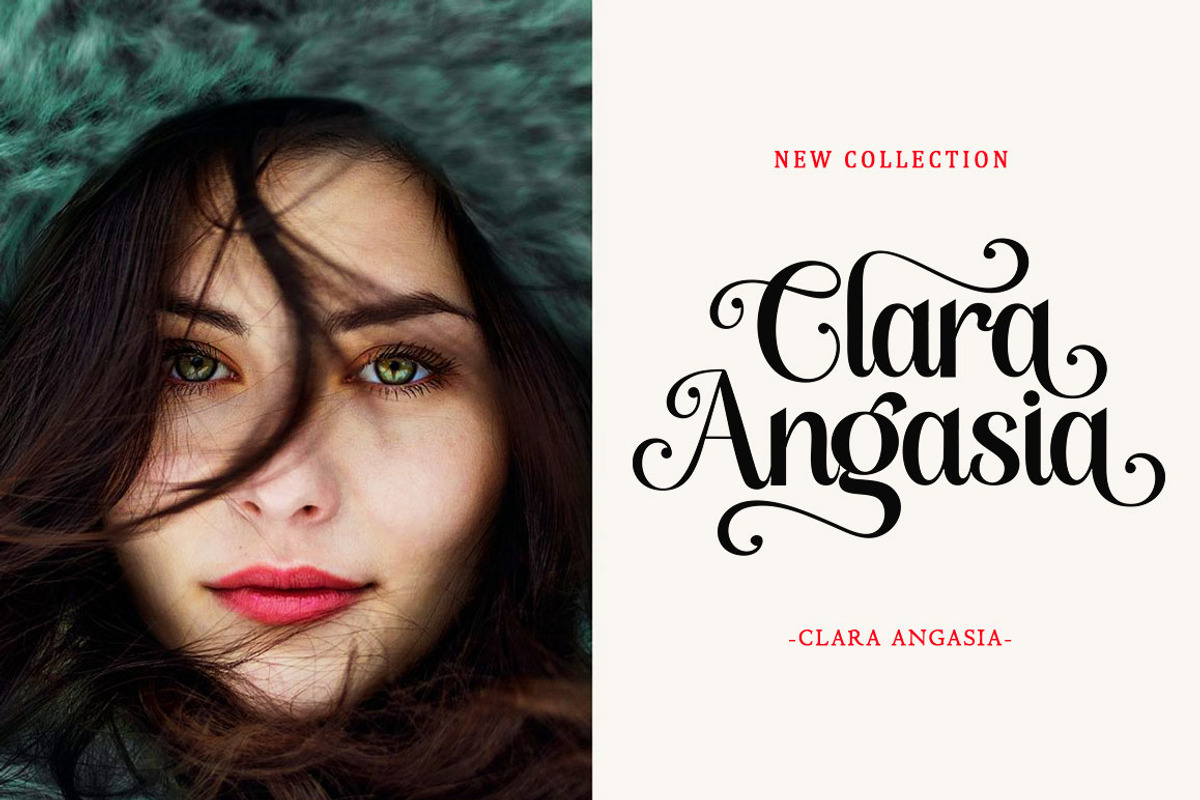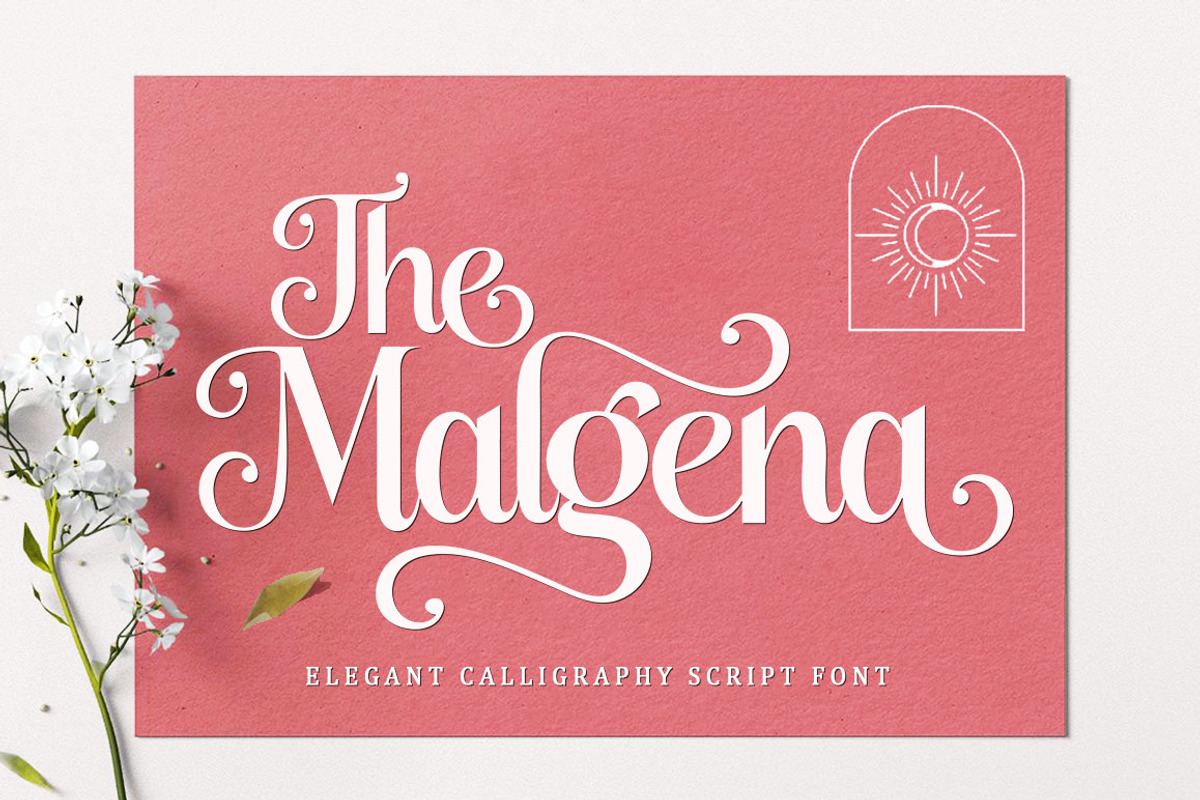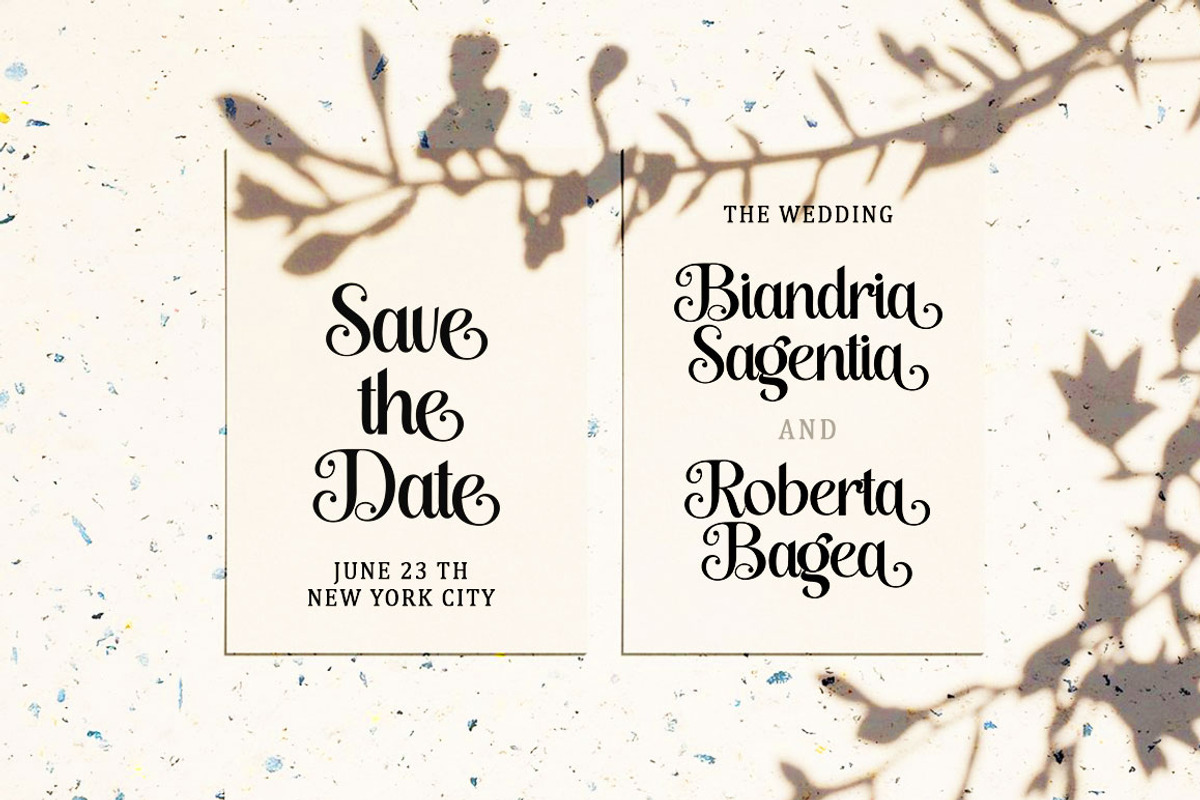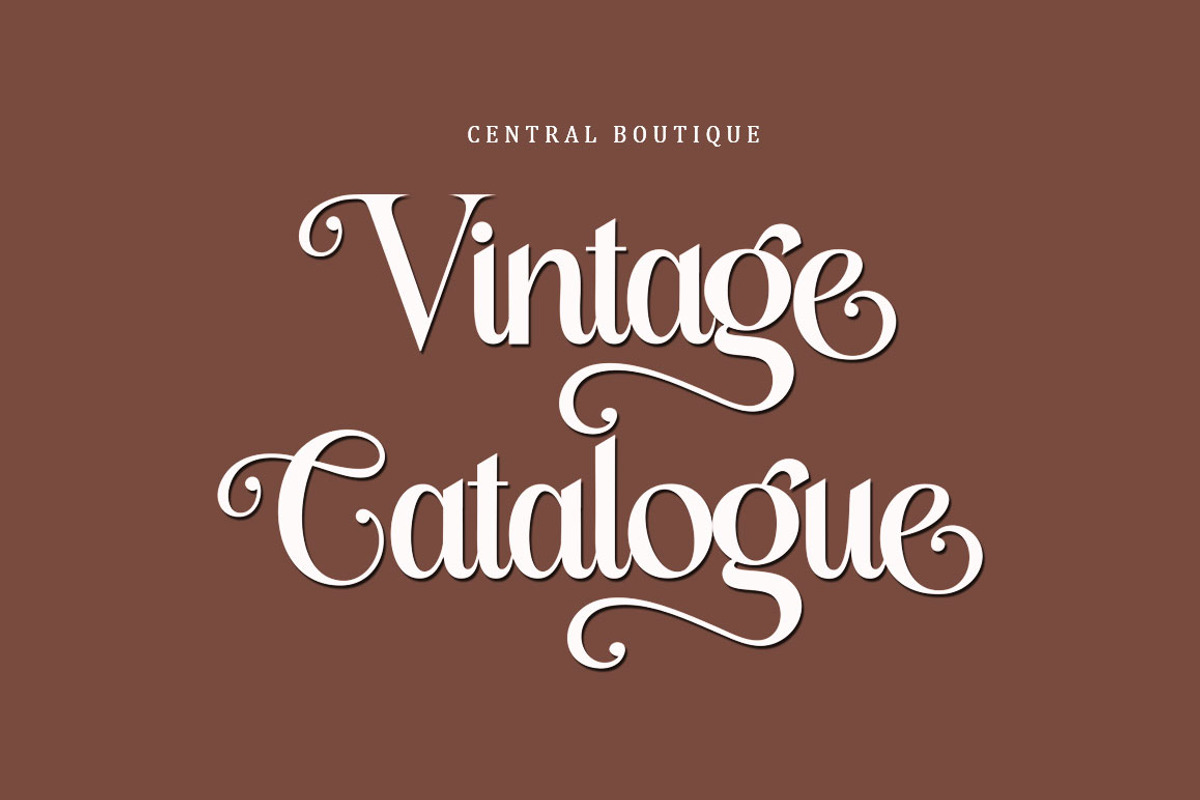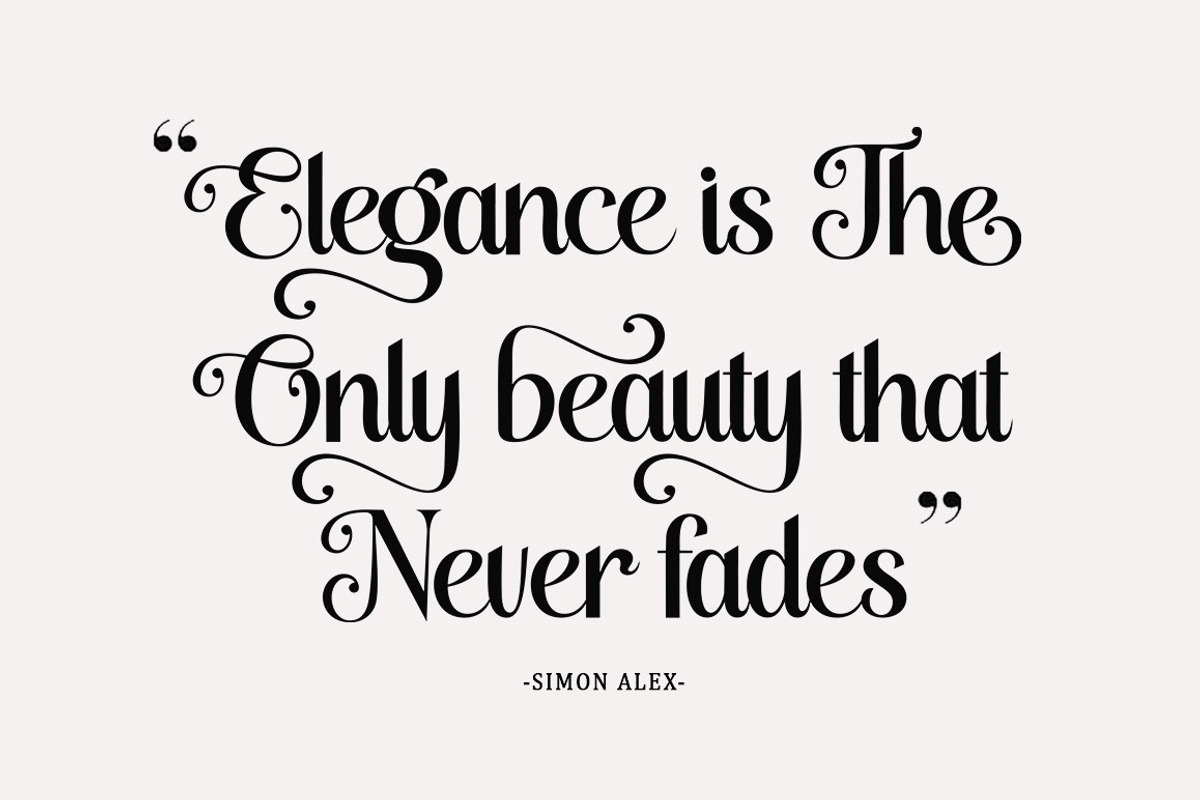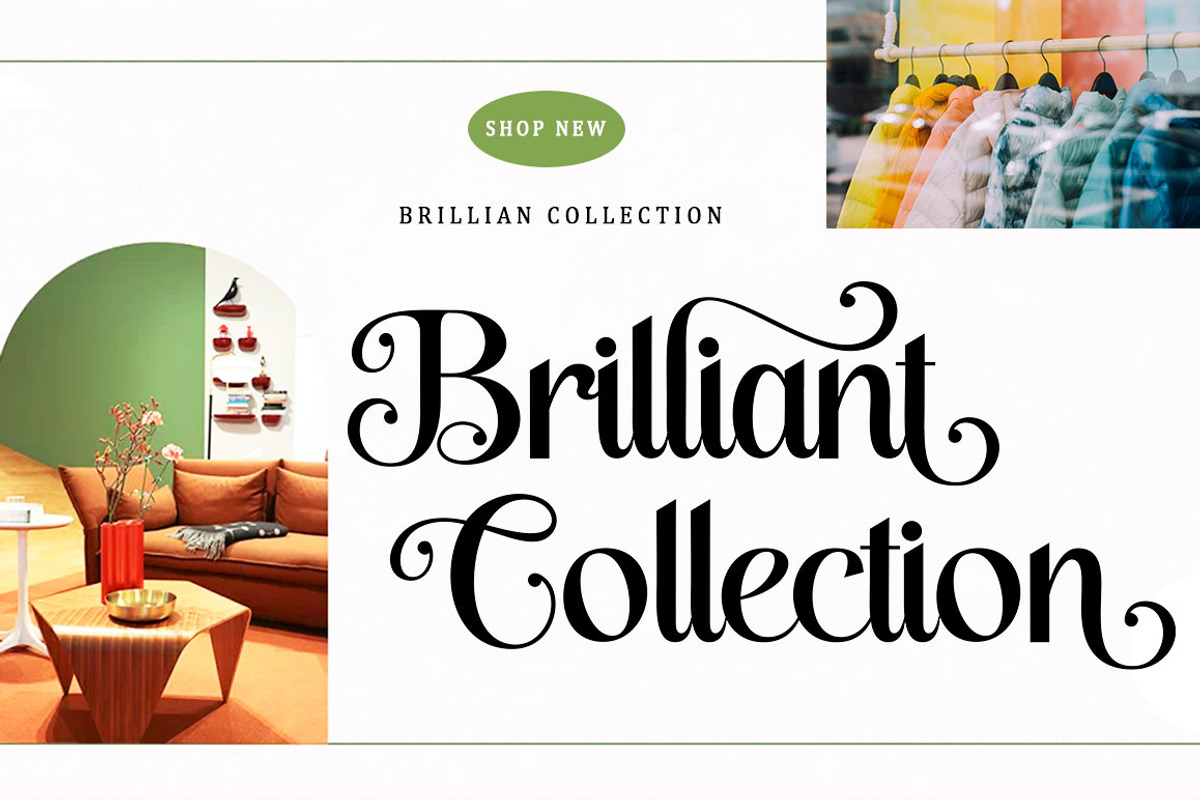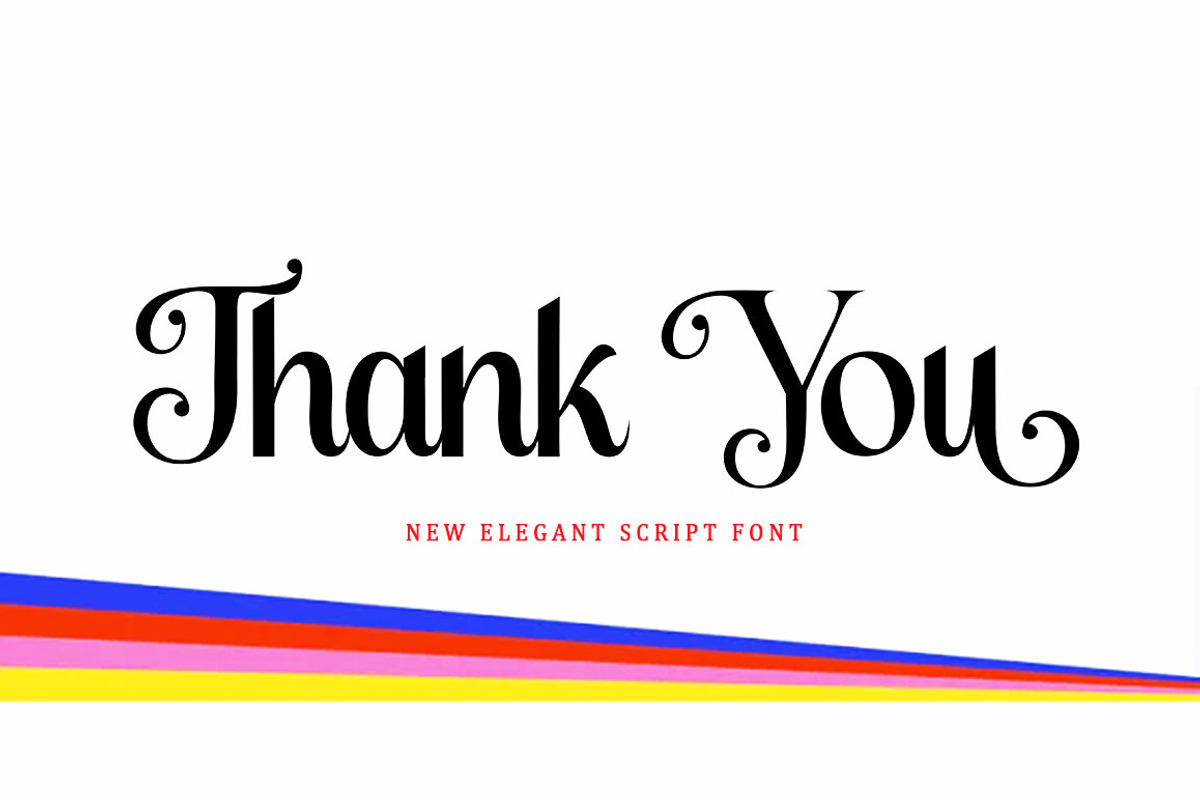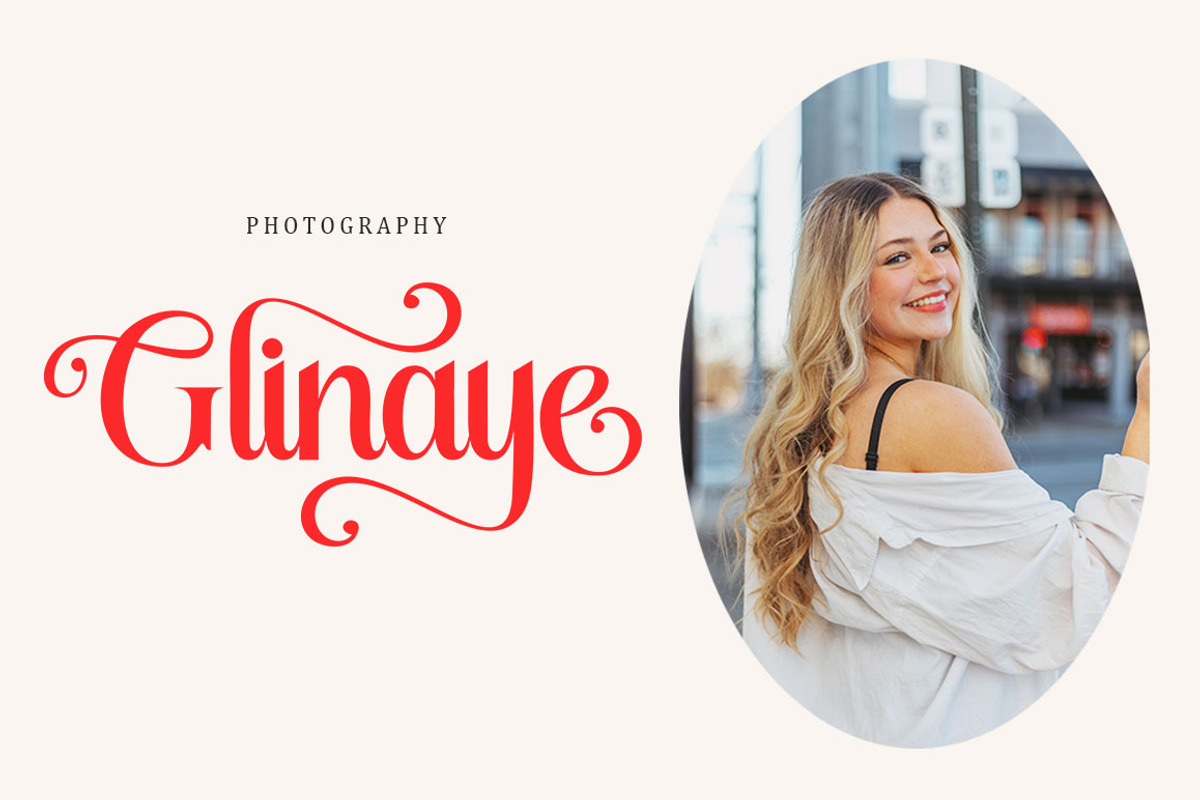
The Malgena Script Font
Malgena is a modern script font featuring a classic and elegant touch. Malgena is attractive because it is sleek, clean, feminine, sensual, glamorous, simple and very easy to read, thanks to its many beautiful letter joints. I also offer a number of decent stylistic alternatives for some of the letters. Classic style is very suitable to be applied in various formal forms such as invitations, labels, restaurant menus, logos, fashion, make up, stationery, novels, magazines, books, greeting cards / weddings, packaging, labels or all kinds of advertising needs. . . . . .